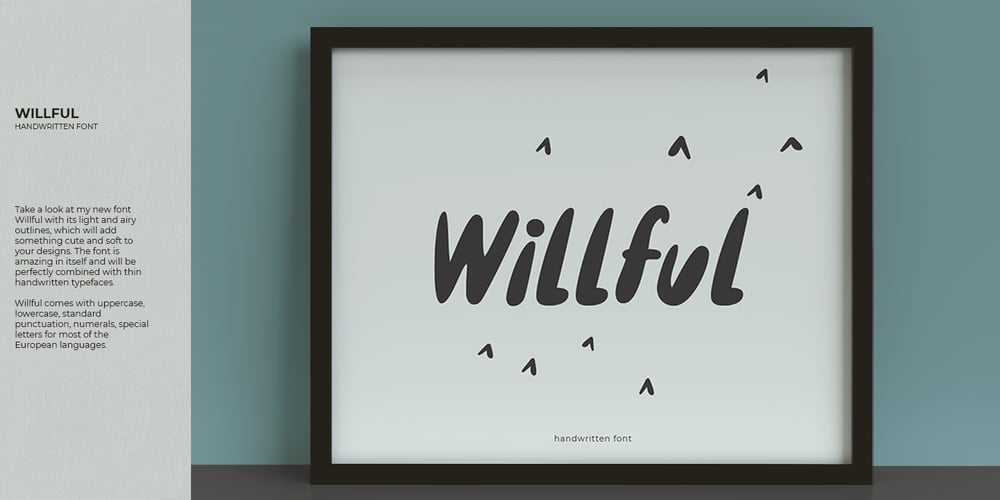
Willful Font Family was designed by Hleb Zhyhunou and published by Mr. Typeman. Willful contains 1 styles and family package options. Take a look at my new font Willful with its light and airy outlines, which will add something cute and soft to your designs. The font is amazing in itself and will be perfectly combined with thin handwritten typefaces. Willful comes with uppercase, lowercase, standard punctuation, numerals, special letters for most of the European languages.